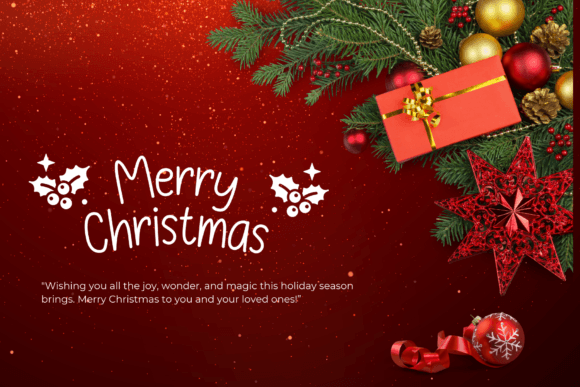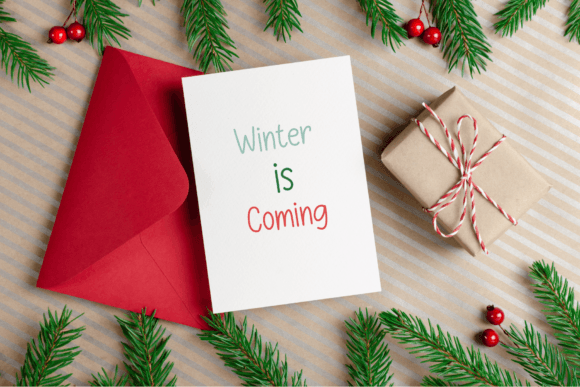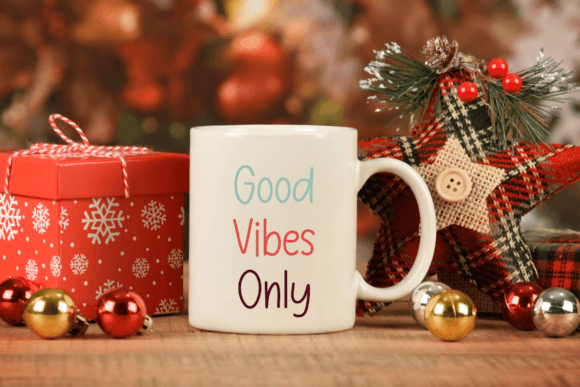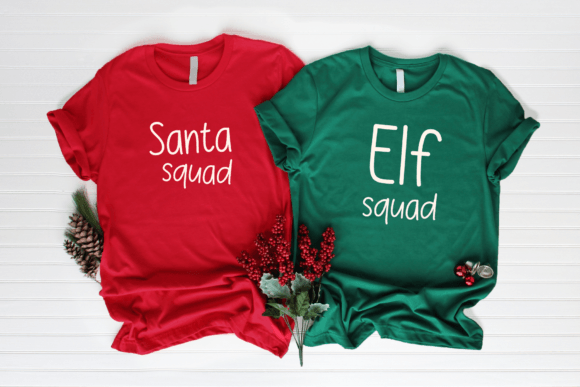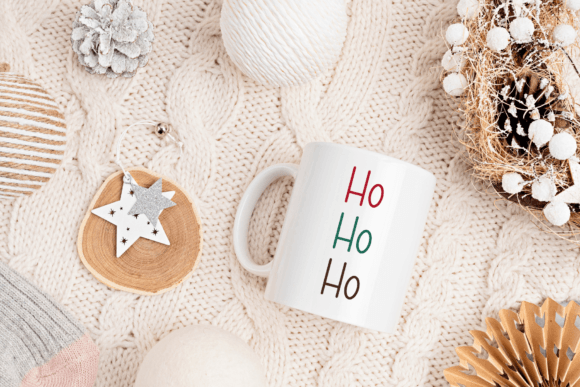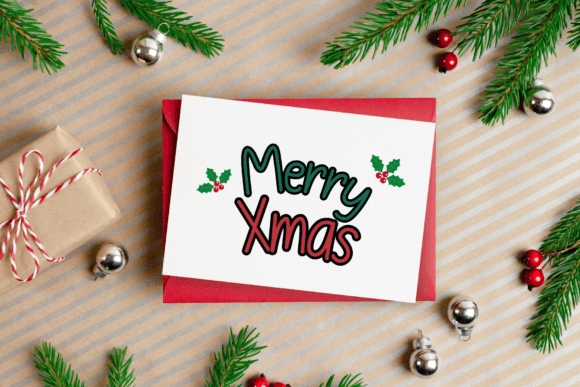
The Joy of Design: Unleashing the Goodwill Font
You know that moment when you’re brainstorming a new project, and a spark of creativity hits you? The ideas start flowing, and you can’t wait to bring your vision to life. For many designers, that spark often begins with the perfect font – one that captures the essence of their brand and style. That’s where the Goodwill Font comes in – a delightful, handwritten font that adds a touch of playfulness and authenticity to any design.
With its versatility and charm, the Goodwill Font is the perfect choice for a wide range of projects, from logos and branding to invitations and photo albums. Whether you’re a seasoned designer or just starting out, this font is a valuable addition to your toolkit. Its uniqueness and character will set your designs apart and leave a lasting impression on your audience.
Goodwill Font Key Features
- Font Family: Goodwill Font is a unique, hand-drawn font family with multiple styles, including Regular, Italic, Bold, and Bold Italic.
- Character Set: The font family includes a wide range of characters, including Latin, Cyrillic, and Greek alphabets, as well as punctuation and symbols.
- Resolution: Designed for high-resolution printing and digital use, with a recommended resolution of 300 DPI or higher.
- Size: The font family includes a range of font sizes, from 8 to 72 points, making it suitable for various applications, including body text, headings, and titles.
- Unique Characteristics: Goodwill Font features a distinctive, handwritten style with subtle imperfections and variations, giving it a personal and charming feel.
Designer Review: Goodwill Font
Goodwill Font is a unique and quirky typeface that’s perfect for adding a touch of whimsy to your designs. ✨ The font’s distressed, handwritten feel is reminiscent of vintage signs and handwritten notes, making it ideal for projects that require a sense of nostalgia and charm.
One of the things that sets Goodwill Font apart is its versatility. ✨ It’s suitable for a wide range of applications, from advertising and marketing materials to packaging and branding. The font is also highly customizable, with a range of weights and styles to choose from.
- ⚠️ Limited legibility: Goodwill Font can be difficult to read, especially in small sizes or when used in large blocks of text.
- ⚠️ Limited language support: Goodwill Font may not be suitable for languages that require a high degree of precision and clarity, such as Japanese or Chinese.
- ⚠️ Limited consistency: Goodwill Font’s irregular, handwritten feel can make it difficult to achieve consistent typography and design.
Overall, Goodwill Font is a fun and creative typeface that’s perfect for designers who want to add a touch of personality to their projects. While it may have some limitations, the font’s unique charm and versatility make it a valuable addition to any designer’s toolkit.
Getting the Most Out of Goodwill Font
Use Goodwill font for titles, headings, and emphasis.
Combine with other fonts for a unique and visually appealing design.
Experiment with different font sizes and styles to create a professional look.
Use Goodwill font for:
• Marketing materials (brochures, flyers, posters)
• Branding and logo design
• Digital content (social media, websites, email marketing)
Alternatives to Goodwill Font
Open Sans is a clean and modern sans-serif font designed by Steve Matteson. It’s ideal for digital products, apps, and websites where readability is crucial. Open Sans is more versatile than Goodwill Font, with a larger character set and more font styles available.
Lato is a sans-serif font designed by Łukasz Dziedzic. It’s a great choice for branding and design projects where a friendly, approachable feel is desired. Lato is more condensed than Goodwill Font, making it suitable for smaller text sizes.
Montserrat is a sans-serif font designed by Julieta Ulanovsky. It’s inspired by urban typography and is ideal for projects that require a strong, industrial feel. Montserrat is more geometric than Goodwill Font, with a larger x-height and more pronounced letterforms.